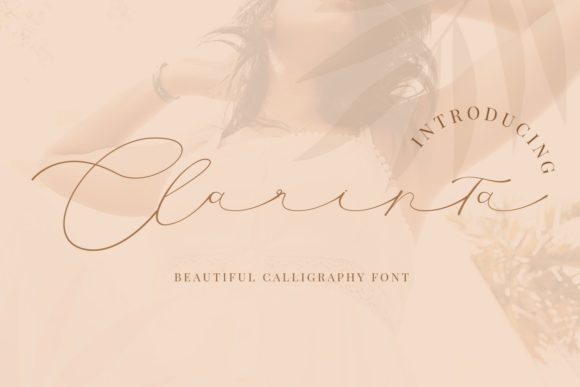
Introducing Clarinta Font – A Handwritten Masterpiece for Your Special Occasions
Prepare to be captivated by Clarinta Font, a breathtaking creation from the renowned artist putracetol. This exquisite script font exudes elegance and charm, making it the ideal choice for those seeking to elevate their designs to new heights.
Step into a world of ethereal beauty, where every letter dances with a graceful fluidity that mirrors the finest penmanship. Clarinta's delicate strokes and enchanting swashes will transform your creations into works of art, leaving an unforgettable impression on all who behold them.
Whether you're crafting personalized invitations for a cherished wedding or designing captivating logos for your business, Clarinta Font holds the power to make your vision a reality. Its versatility knows no bounds, allowing you to effortlessly add a touch of sophistication to any project that demands attention.
With Clarinta at your fingertips, you'll never settle for ordinary again. Embrace the power of this extraordinary font and watch as your designs blossom into creations of unparalleled beauty. Let Clarinta be your guide as you embark on a journey of creative fulfillment.